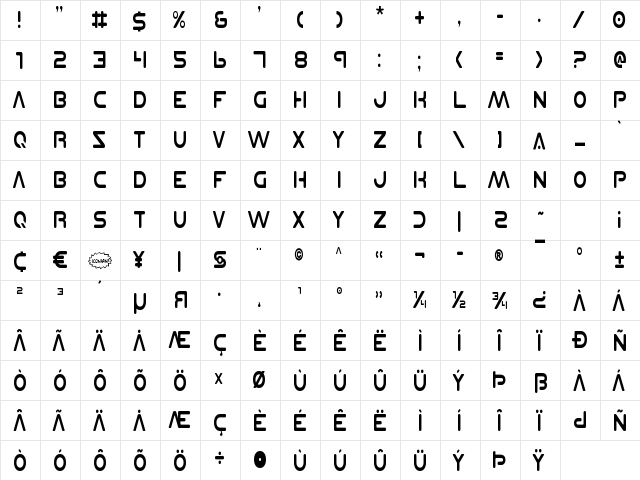
Planet N Condensed Condensed
Design Context for Planet N Condensed Typeface
Planet N Condensed offers clean, dependable letterforms without strong stylistic allegiance, making it a practical choice for designers who need flexibility. The condensed width makes it efficient for tight spaces without sacrificing legibility.